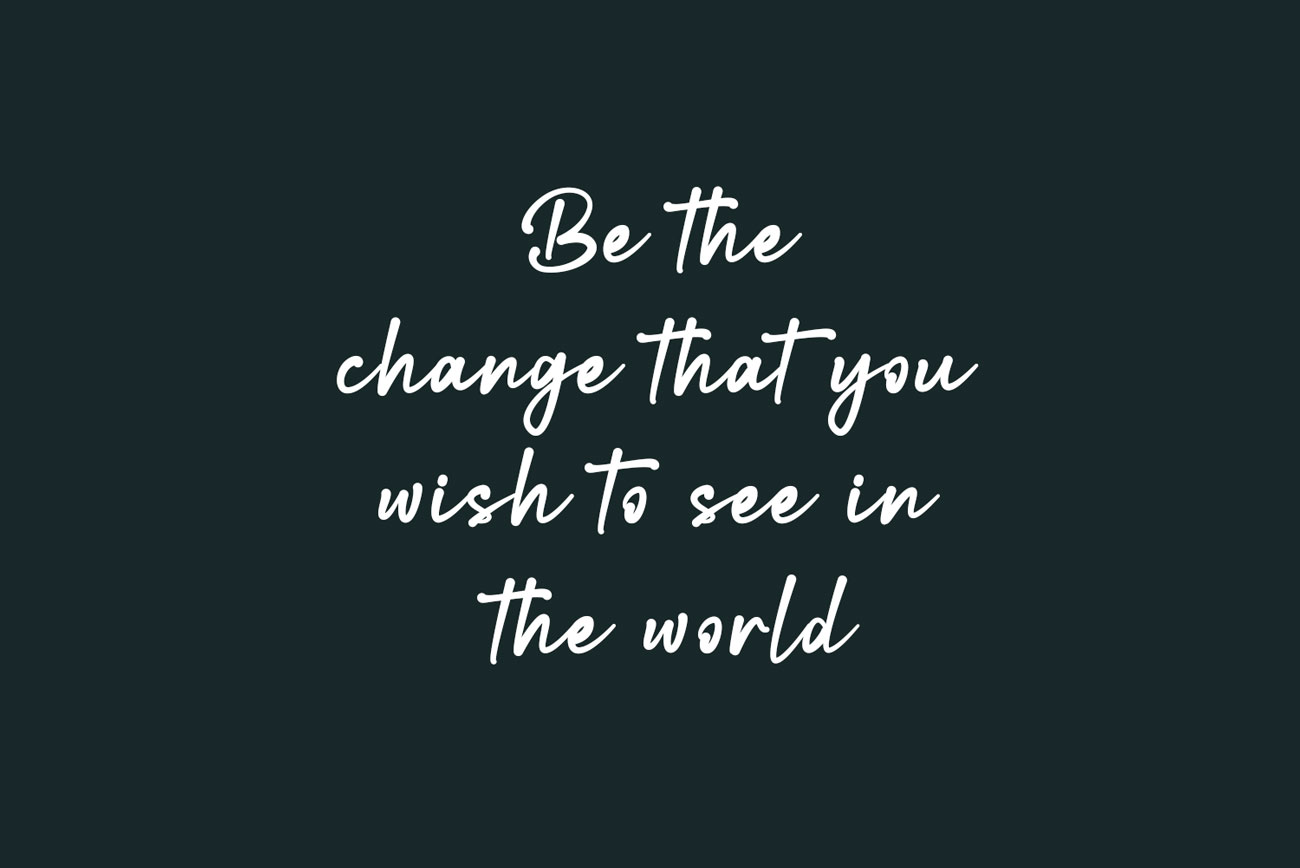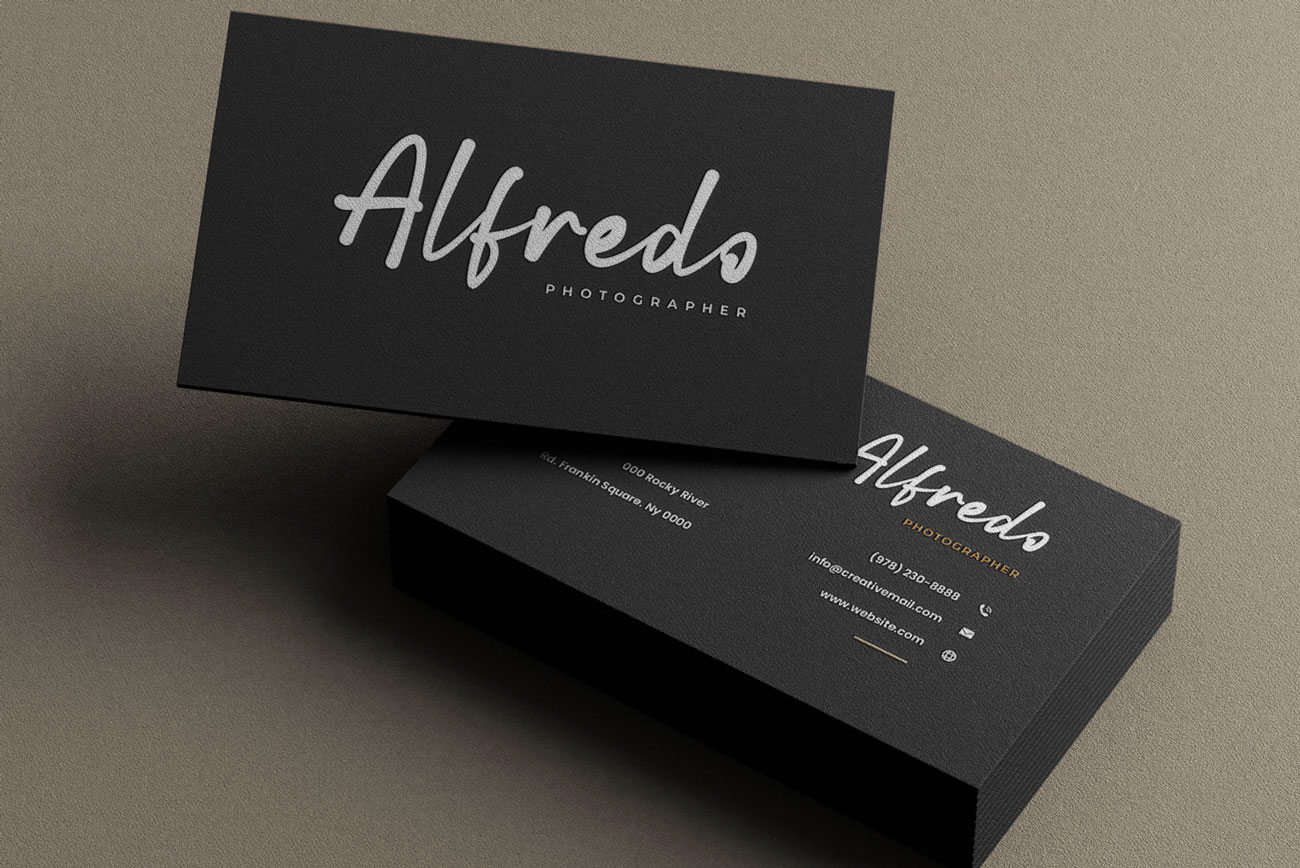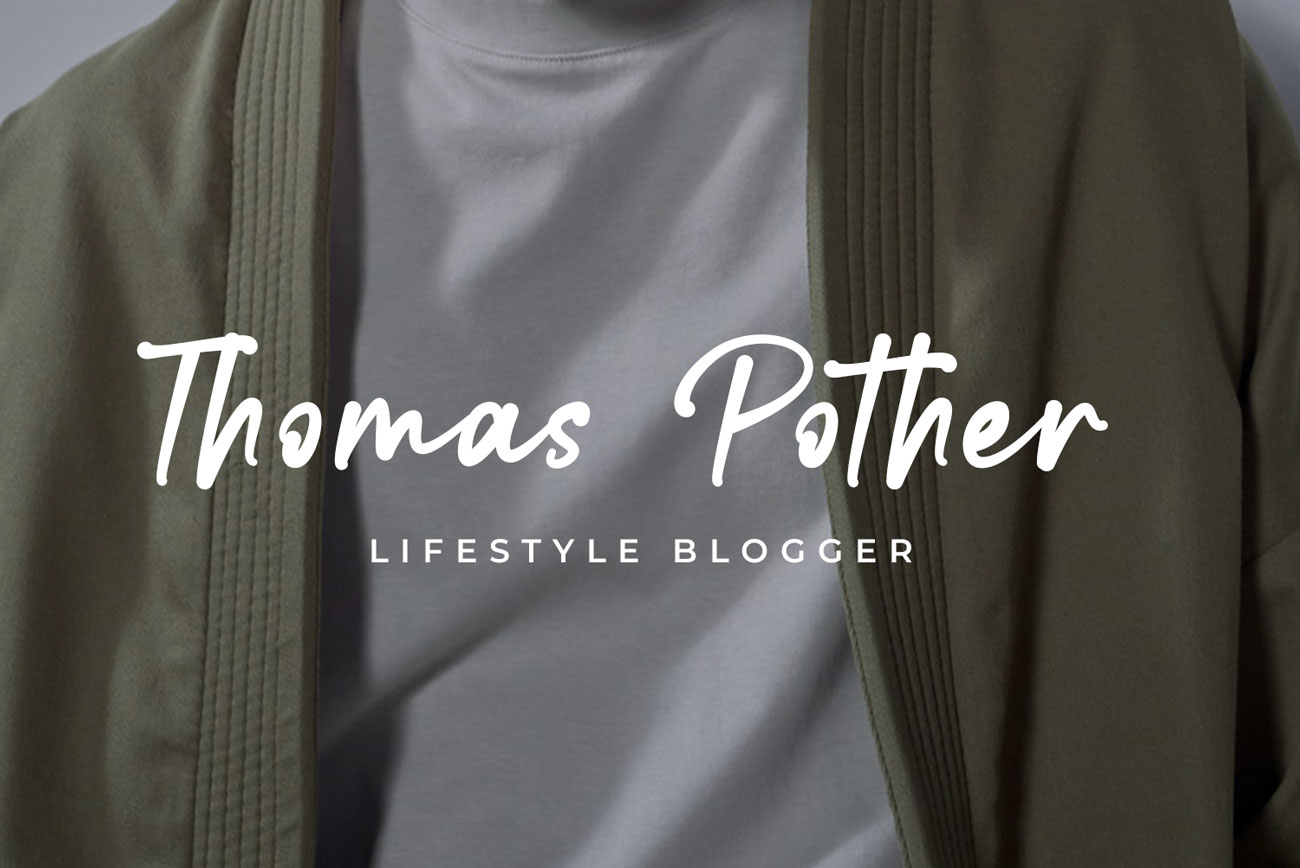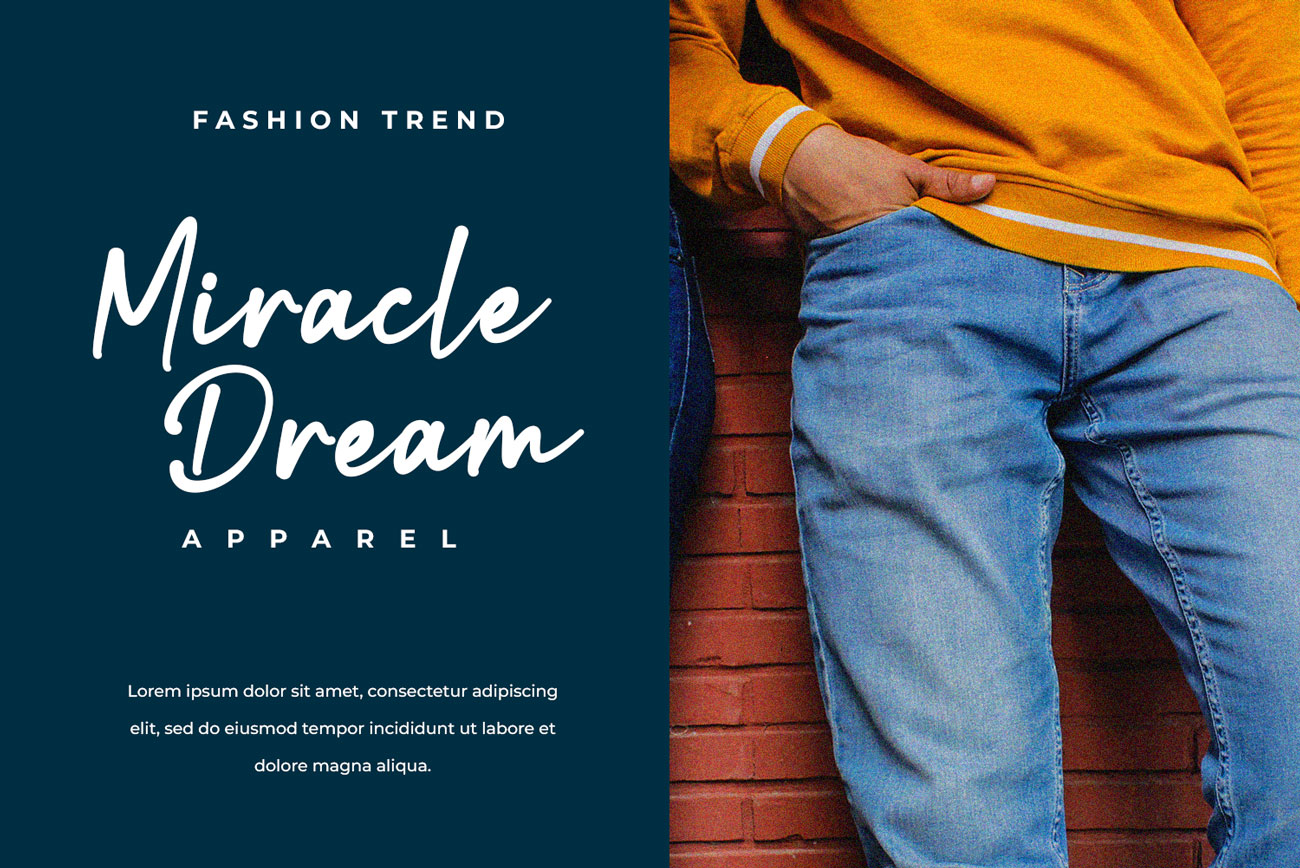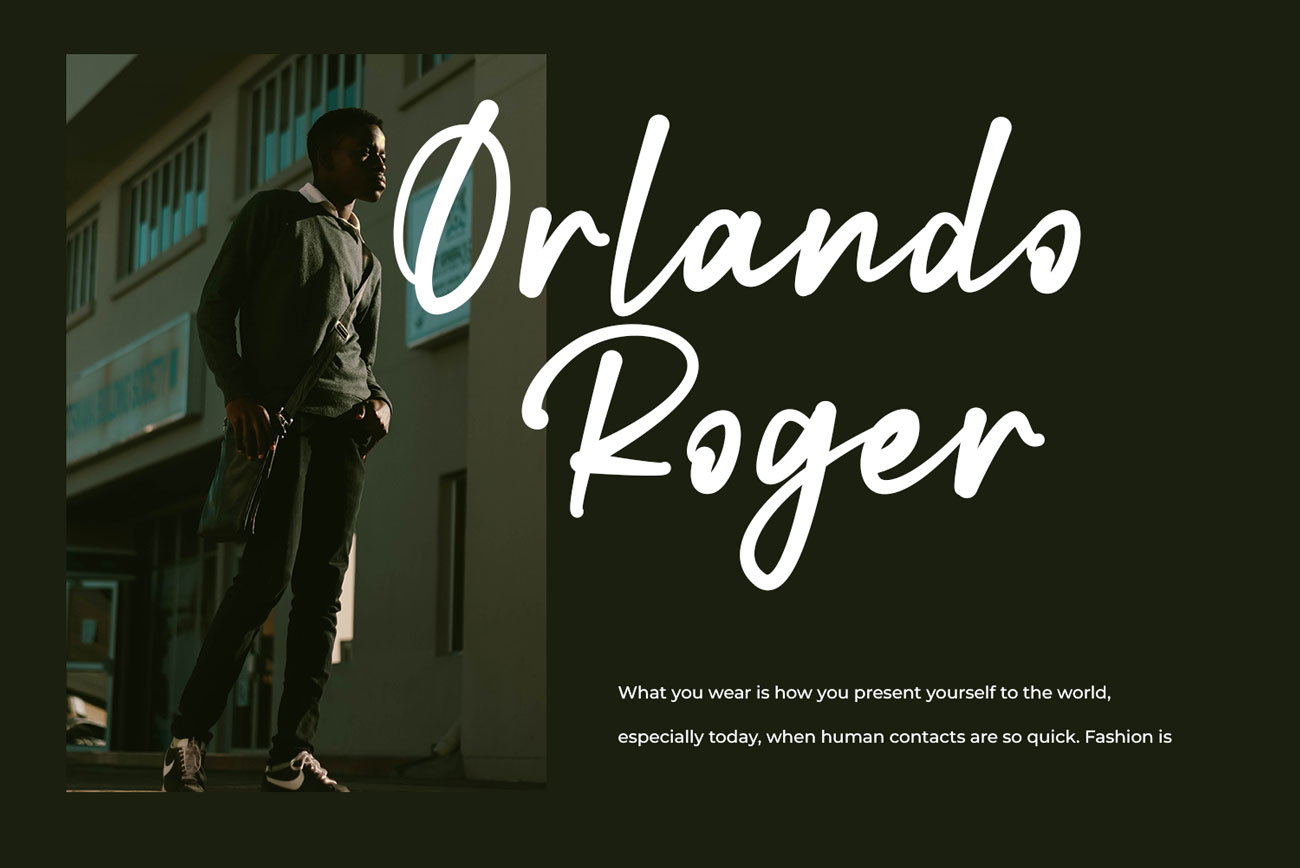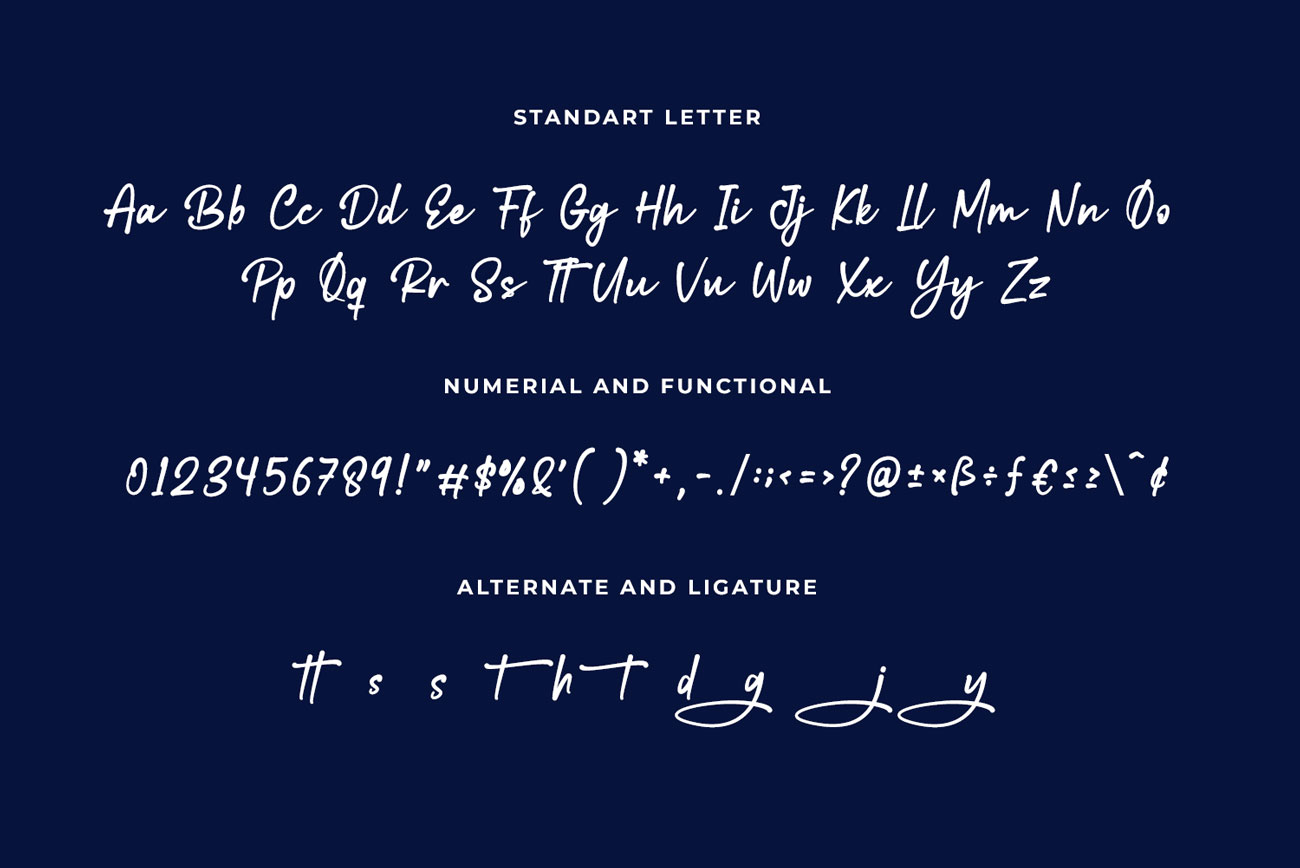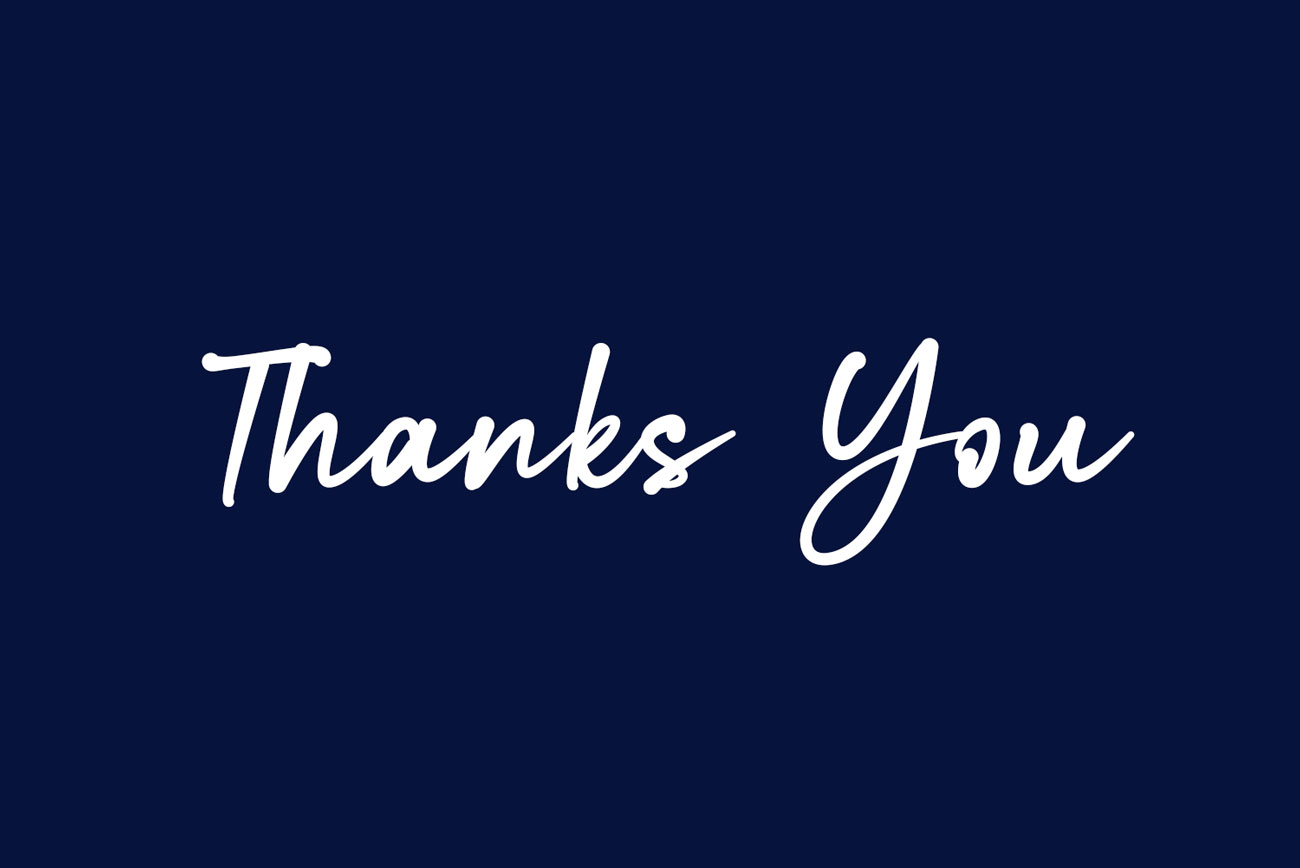
Shantay Bold script font
Proudly present bold script font “Shantay”. Every single curve has my personality touch. It is great for making logotype, branding, promotional ads, quotes design, packaging, t-shirt design. merchandise, poster, merchandise, social media and much more. Shantay is here to make your work or your business to high level!!!
• Standart letter A-Z and a-z
• Swashes